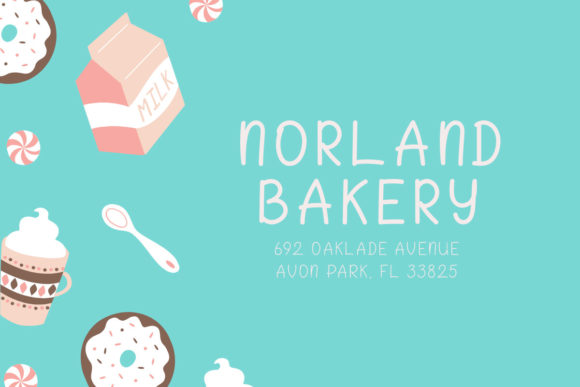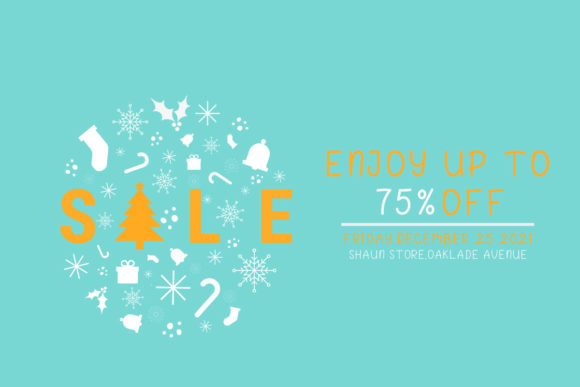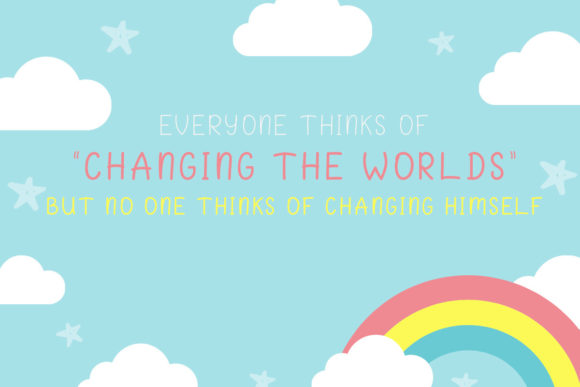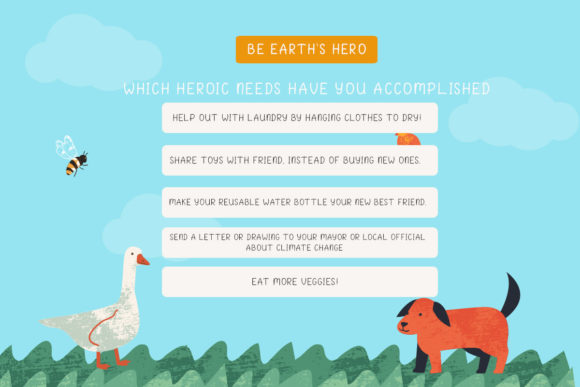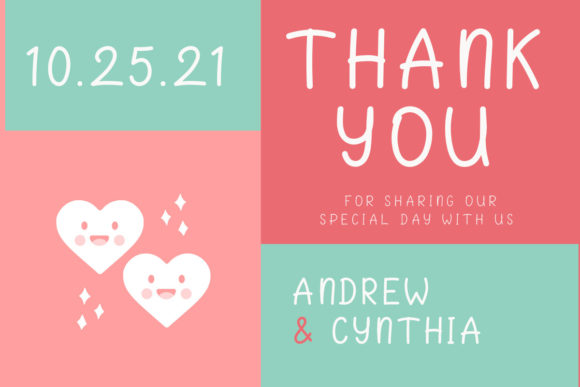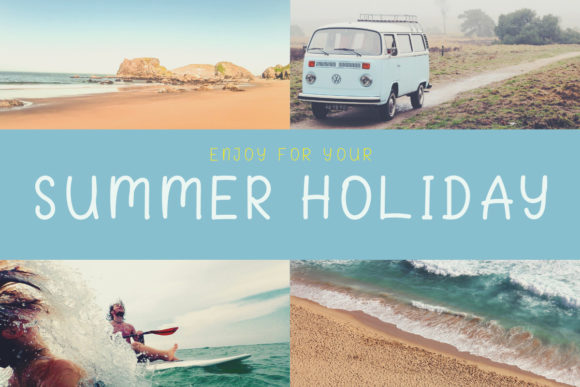
Introduction to Snoopod Font
Have you ever found yourself in a creative rut, staring at a blank chalkboard or whiteboard, desperately searching for the perfect font to bring your design to life? It’s a familiar feeling for many designers, but what if I told you that there’s a font that can help you break free from that blank slate and add a touch of personality to your work?
Enter the Snoopod Font, a charming and authentic handwritten font that’s perfect for creating chalkboard quotes, teaching materials, and other creative projects. With its high-quality design and transparent background, this font is a valuable resource for designers looking to add a personal touch to their work.
Snoopod Font
- High-quality, vector-based font suitable for creative projects and designs.
- Designed with a modern aesthetic, making it perfect for contemporary creative projects and designs.
- Resolution-independent, ensuring crisp and clear text display regardless of the design’s resolution or zoom level.
Honest Review: Snoopod Font
I recently stumbled upon the Snoopod Font and I have to say, it’s been a game-changer for my creative project. As a designer, I’m always on the lookout for high-quality fonts that can elevate my designs. And let me tell you, Snoopod Font does not disappoint.
- ✨ High-quality design: The Snoopod Font is well-designed and visually appealing, making it perfect for any creative project.
- ✨ Transparent background: This feature is super useful for designers who need to create graphics with a transparent background.
- ⚠️ Limited character set: The font only includes a limited character set, which may not be ideal for designers who need to create complex text-based designs.
- ⚠️ Not suitable for small text: The font is best used for larger text sizes, as it can become blurry when used for small text.
Snoopod Font
Tips for Getting the Most Out of Snoopod Font
Experiment with different font sizes and colors to find the perfect combination for your design. Use the Snoopod Font’s transparent background feature to create visually appealing graphics and designs.
The Snoopod Font is ideal for creative projects such as logos, posters, and social media graphics. Its unique design and high-quality features make it a valuable design resource for designers and non-designers alike.